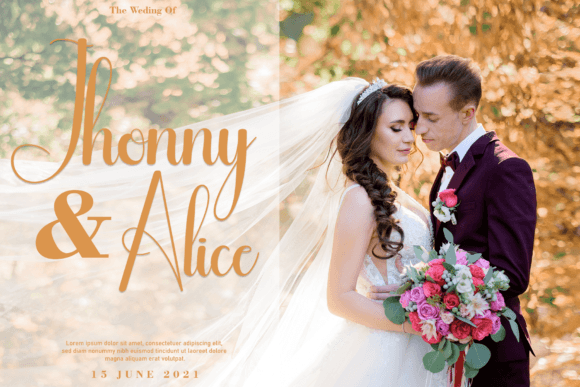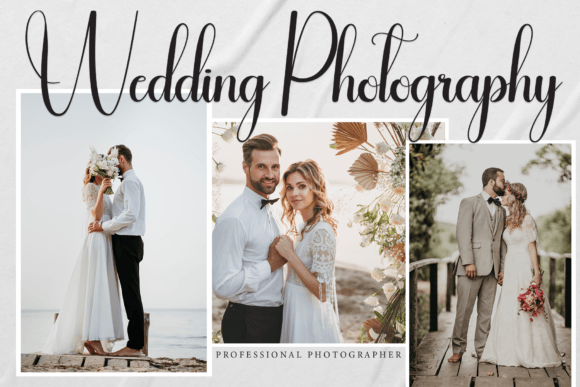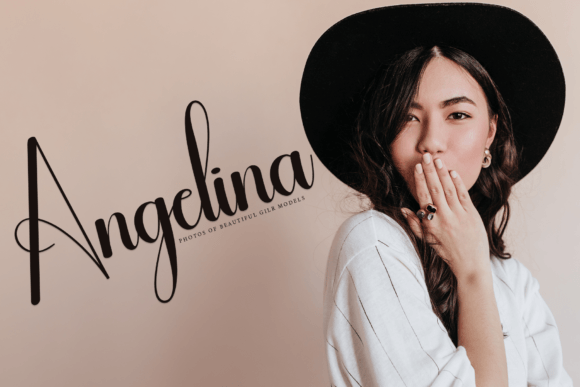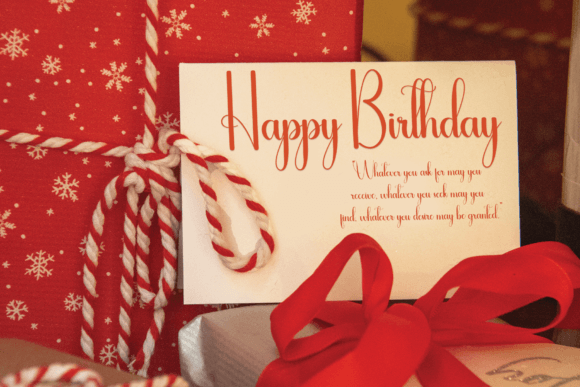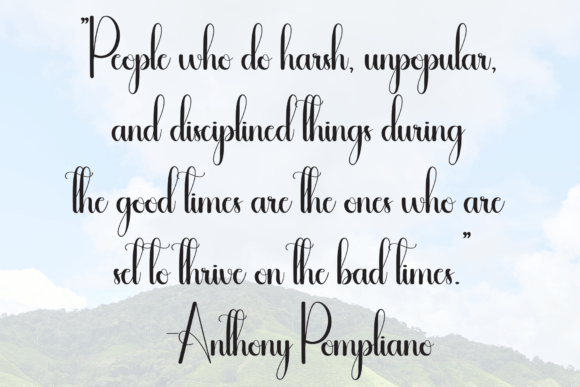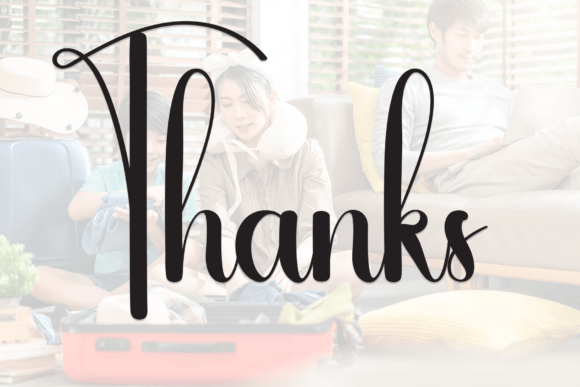
The Perfect Font for a Festive Feel
As a designer, there’s nothing quite like the thrill of creating a beautiful and unique piece of work. Whether it’s a wedding invitation, a holiday card, or a special birthday message, the right font can make all the difference. And that’s exactly where the Home Holiday Font comes in – a sweet and friendly handwritten display font that’s guaranteed to add a fun touch to any design.
With its cute and playful feel, the Home Holiday Font is the perfect addition to any project that needs a little extra personality. From wedding invitations to holiday cards, this font is ideal for designers who want to add a touch of whimsy and charm to their work. And with its versatility, it’s a valuable asset for any designer looking to add a little extra flair to their designs.
Key Features of Home Holiday Font
- Font Family: Home Holiday Font is a unique, hand-drawn font family designed for holiday and seasonal use.
- Character Count: The font family includes over 700 characters, including uppercase and lowercase letters, numbers, punctuation marks, and holiday-themed glyphs.
- Unique Characteristics: Home Holiday Font features a playful, whimsical design with intricate details and ornaments, making it perfect for adding a touch of festive charm to holiday-themed designs.
Review of Home Holiday Font
I recently had the chance to play around with the Home Holiday Font, and I must say it’s a unique blend of traditional and modern elements. ✨ The font’s cursive script is reminiscent of handwritten notes, adding a personal touch to any design project. The bold weight is sturdy and easy to read, making it perfect for headlines and titles.
- Works well for:
- Christmas and holiday-themed designs
- Handwritten-style typography
However, there are some limitations to consider. ⚠️ The font can feel a bit overused, especially in commercial contexts. It’s essential to use it in a way that adds a touch of personality to your design, rather than relying on its popularity. Additionally, the font’s spacing can be a bit inconsistent, which may affect readability in longer blocks of text.
Overall, I think the Home Holiday Font is a solid choice for designers looking to add a touch of whimsy to their projects. With some creative usage and attention to spacing, this font can add a unique and memorable element to your designs.
Use the Home Holiday Font in conjunction with other festive elements, such as holly leaves or snowflakes, to create a cohesive holiday design. Experiment with different font sizes and colors to add visual interest. Consider using the font in combination with other fonts to create a unique and eye-catching design.
The Home Holiday Font is perfect for creating holiday-themed designs, such as Christmas cards, invitations, and social media graphics. It’s also great for adding a festive touch to business documents, such as holiday newsletters or promotional materials.
Q: Does Home Holiday Font include any special features or effects?
Yes, Home Holiday Font includes a range of special features, including swashes, flourishes, and ornaments, which can be accessed through the font’s glyph palette. The font also includes a range of ligatures and contextual alternates to help you achieve a more natural and elegant look in your designs.